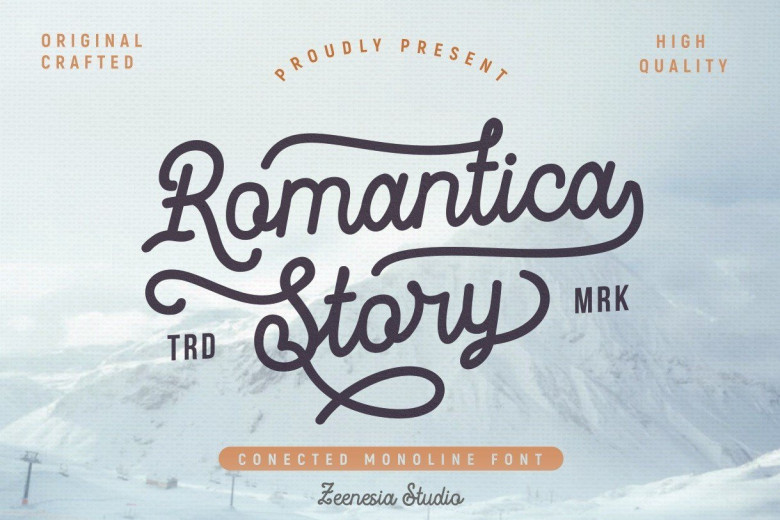
Romantica Story Monoline Script Font
Romantica Story Monoline Script Font is a vintage styled handwritten typeface. Its distinct and well rounded letters make this font a masterpiece. Fall in love with its incredibly versatile style and use it to create spectacular designs!